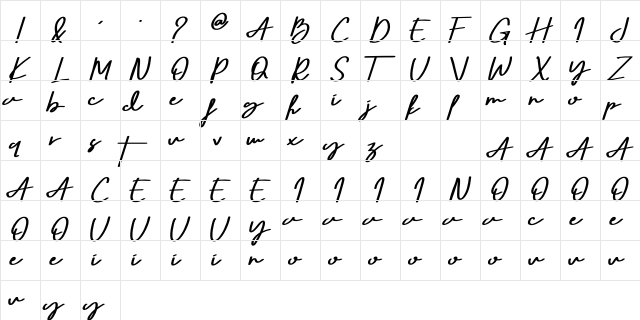
Seven Day Signature Regular
| Foundry | RantauType |
| Designer | Yudi Pratama Chandra |
Design Context for Seven Day Signature Typeface
Seven Day Signature is a composed and adaptable typeface that performs quietly and consistently across a wide range of design contexts.